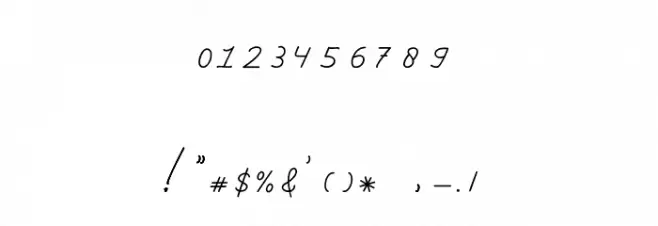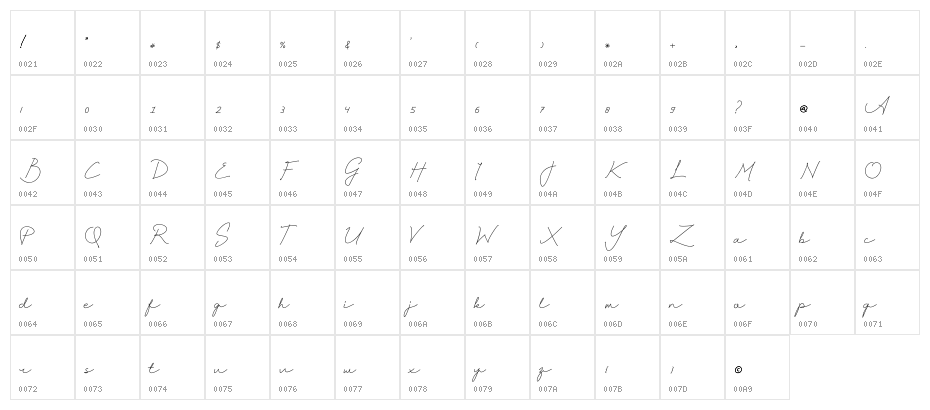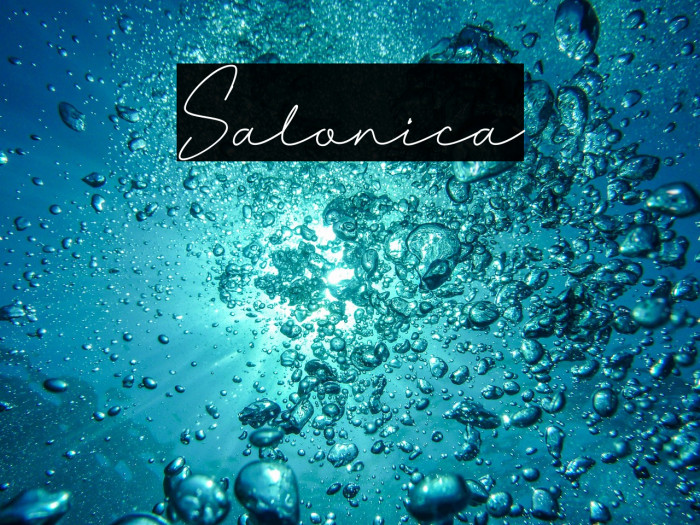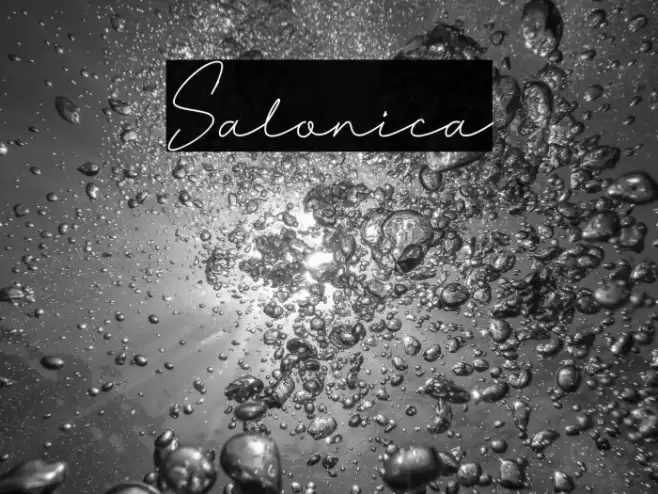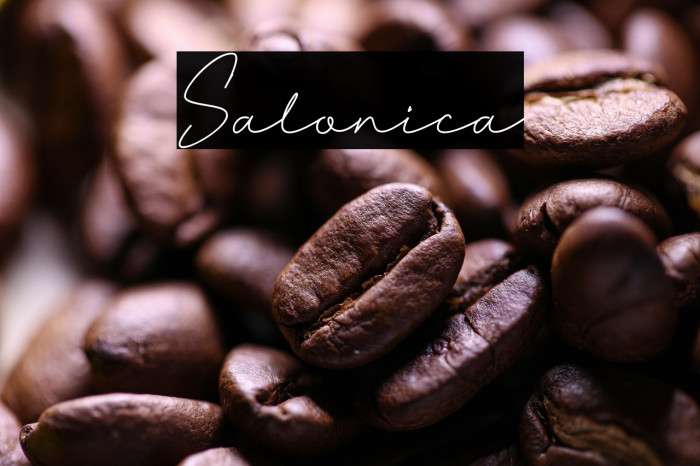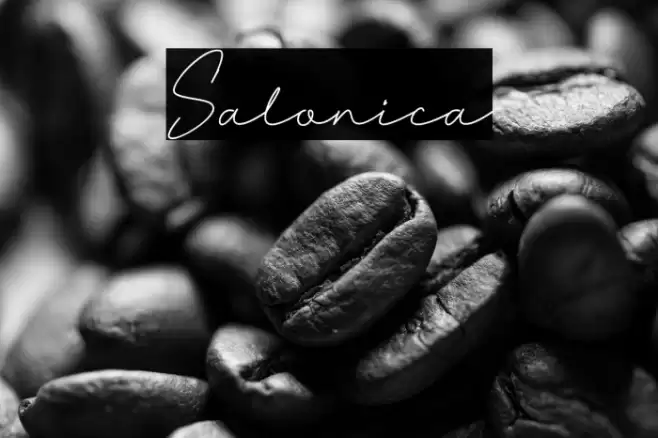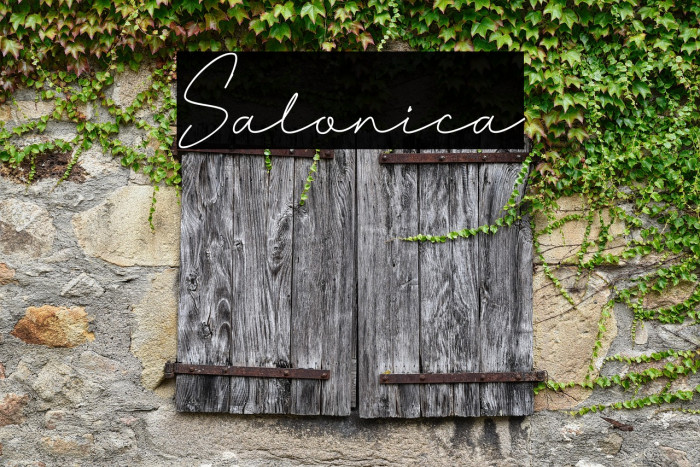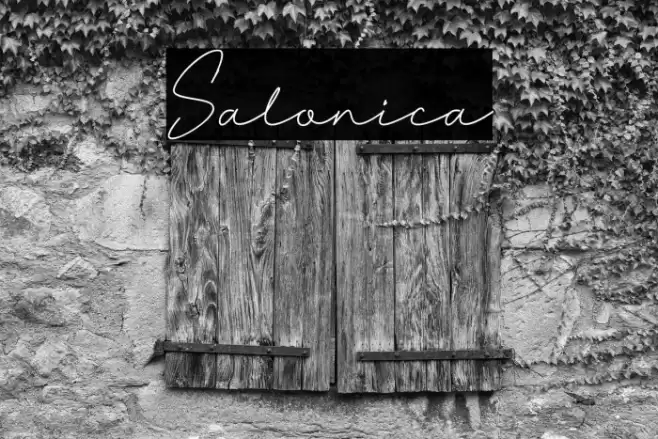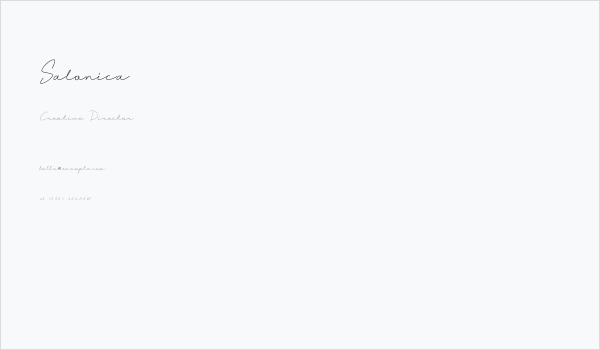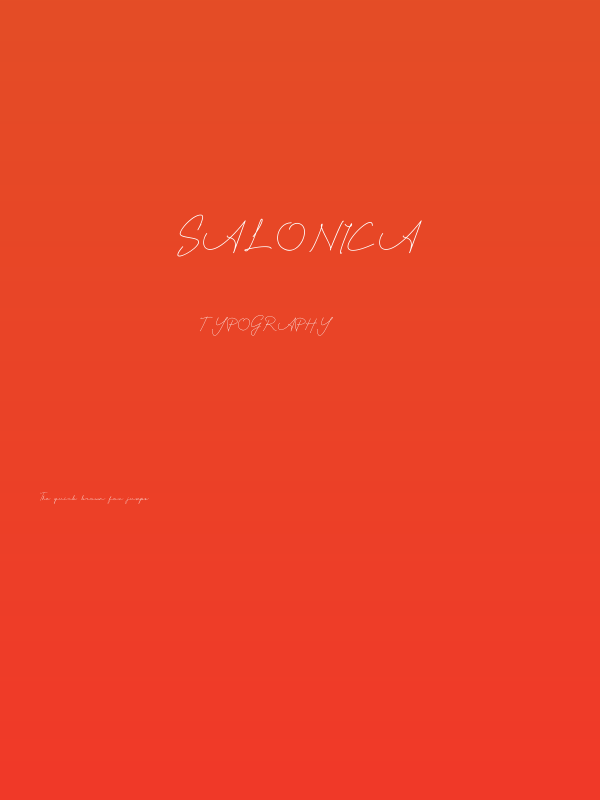
Salonica Font
Salonica Description
This font exudes a delicate and elegant handwritten style, characterized by its flowing and interconnected letterforms. The uppercase letters are tall and slender, with graceful curves and a slight slant, giving them a sophisticated appearance. The lowercase letters maintain a consistent flow, enhancing the script-like quality of the font. Numbers and special characters are designed to match the overall aesthetic, with smooth lines and subtle flourishes. The font's thin strokes and airy spacing contribute to its light and refined look, making it suitable for projects that require a touch of elegance and personal flair.
Overall StyleElegant
Use CaseLogos, Invitations, Personal Branding
Proposed ProjectsIdeal for wedding invitations, personal branding, elegant stationery, and greeting cards.